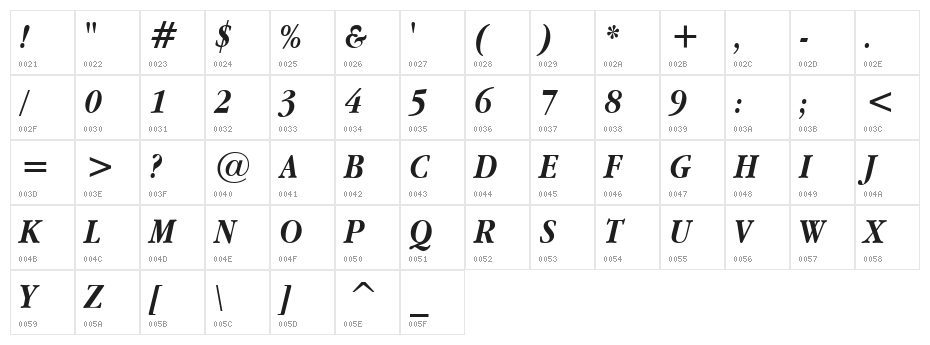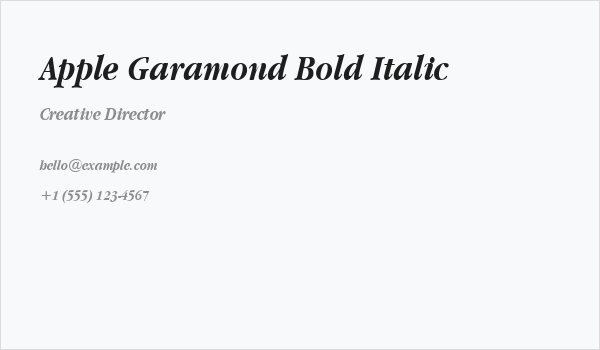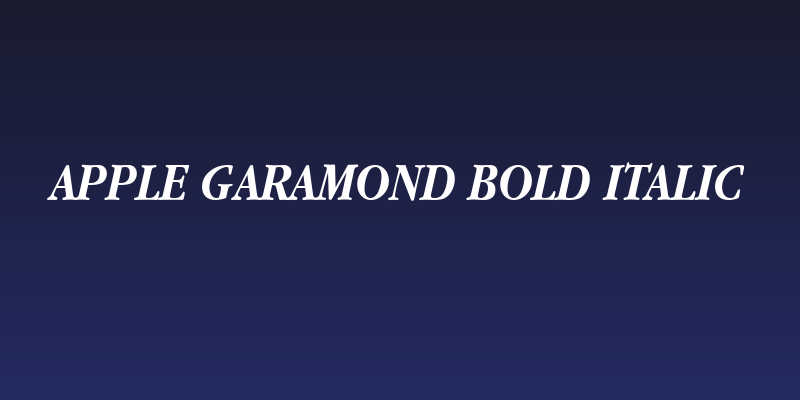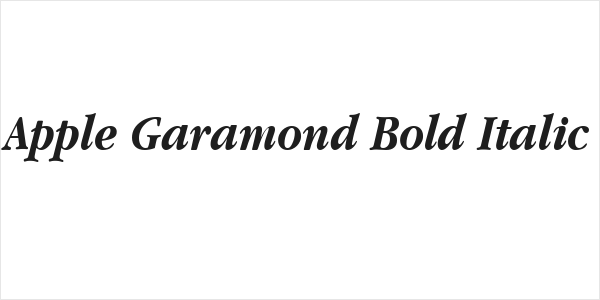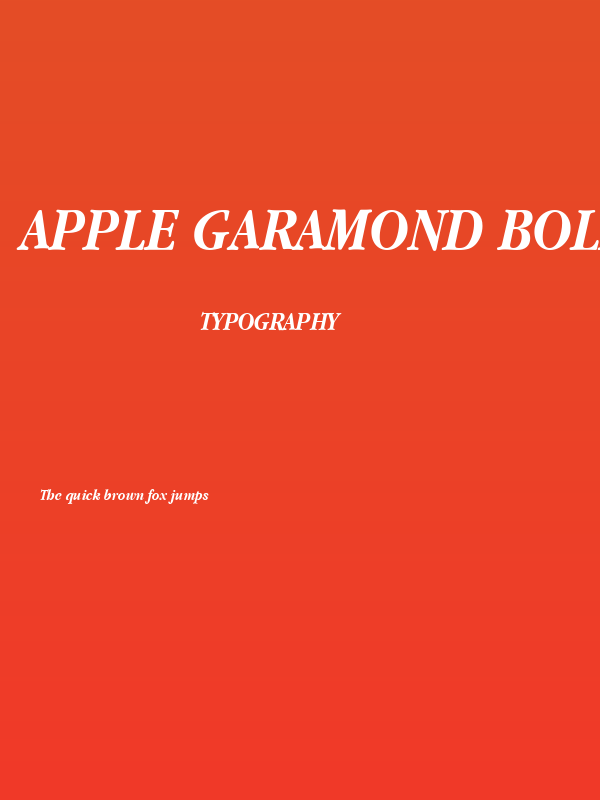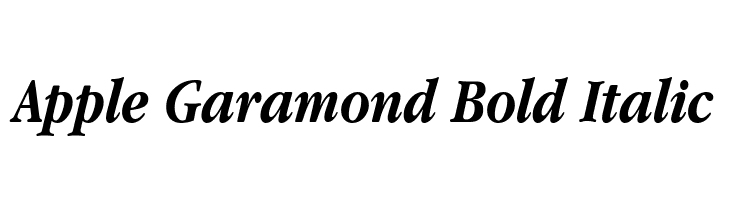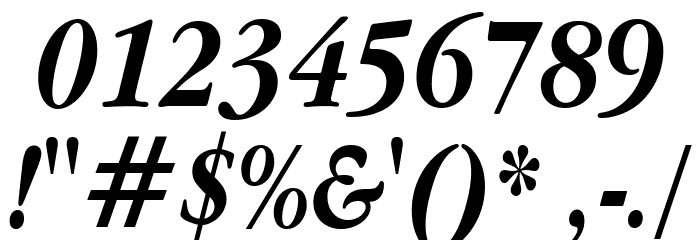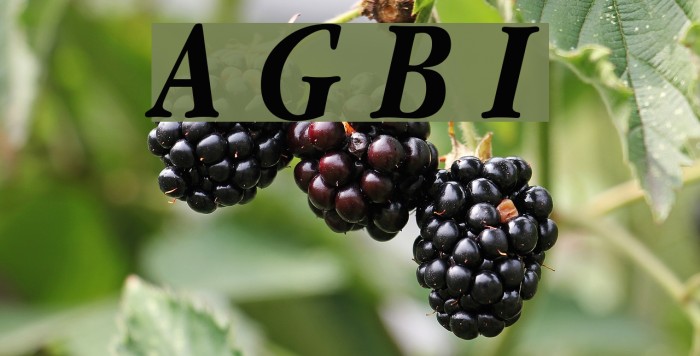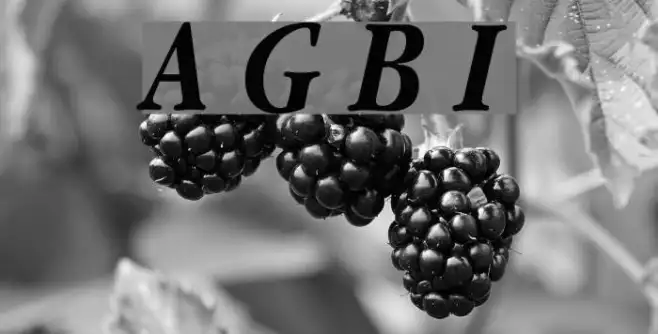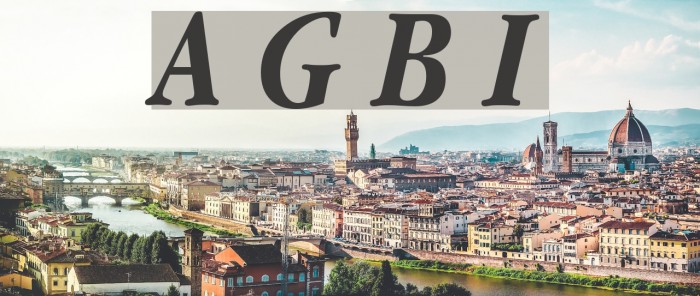
Apple Garamond Bold Italic Font
Apple Garamond Bold Italic Description
This font exudes a classic elegance with its bold and italicized serif style. The letters are well-defined with a slight slant, giving a sense of motion and sophistication. The uppercase characters are stately and commanding, while the lowercase letters maintain a graceful flow. The numerals are clear and distinct, ensuring readability. Special characters are crafted with attention to detail, enhancing the font's versatility. Overall, this font combines traditional serif elements with a modern twist, making it suitable for a variety of design applications.
| Overall Style | Classic |
| Use Case | Headlines, Logos, Editorial design |
| Proposed Projects | Ideal for luxury branding, editorial design, invitations, and high-end product packaging. |